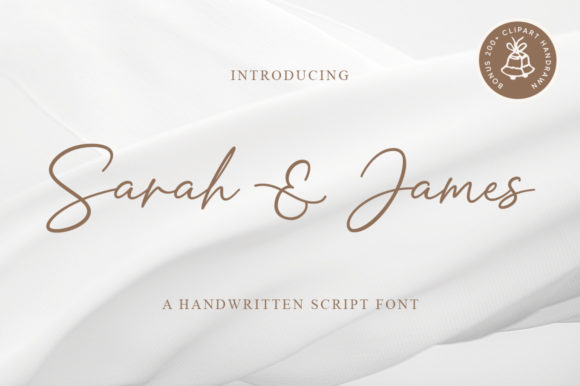
Welcome to the enchanting world of Sarah & James, where handwritten elegance meets digital precision. This captivating script font will ignite your creativity and elevate your designs to breathtaking heights.
Indulge in the allure of Sarah & James's delicate and graceful strokes, meticulously crafted to evoke the beauty of handwritten signatures. Each letter dances across the page with an effortless fluidity, capturing the essence of intimacy and personal expression.
Unleash the power of Sarah & James to transform your projects into masterpieces. Let its enchanting charm adorn your wedding invitations, branding designs, social media posts, or any creative endeavor where a touch of timeless style is desired.
Beyond its undeniable beauty, Sarah & James is a font crafted for convenience. Its PUA encoding allows you to effortlessly access a treasure trove of glyphs and swashes, empowering you to add intricate details and flourishes to your designs with exquisite ease.
Succumb to the allure of Sarah & James, a font that effortlessly combines timeless elegance with modern functionality. Prepare to be mesmerized as your creations blossom into works of art, captivating the hearts and minds of all who behold them.